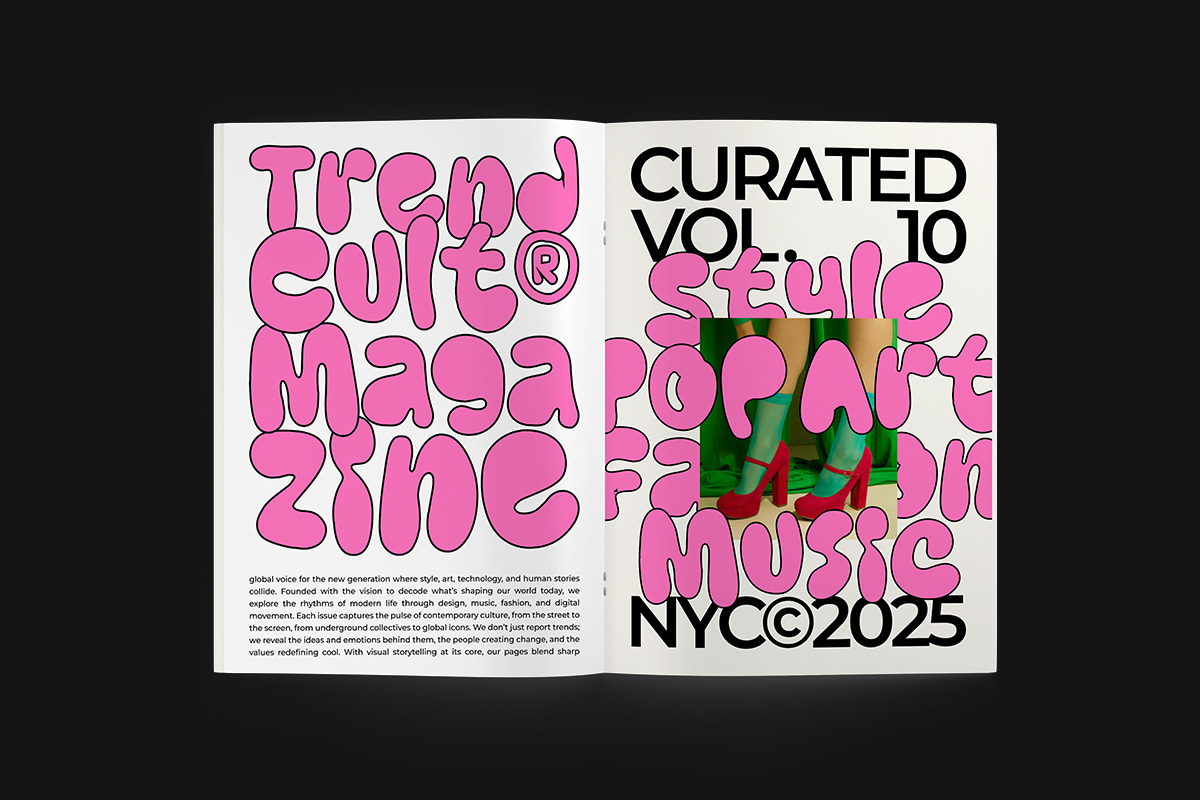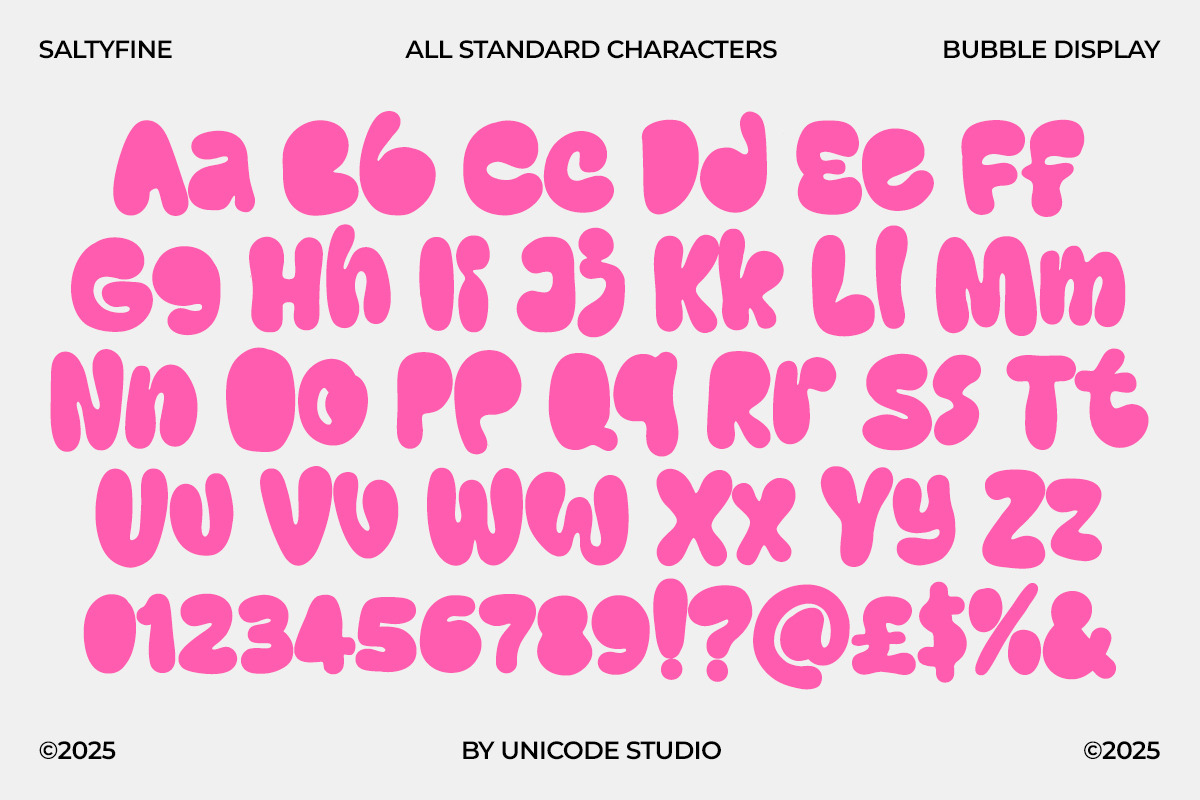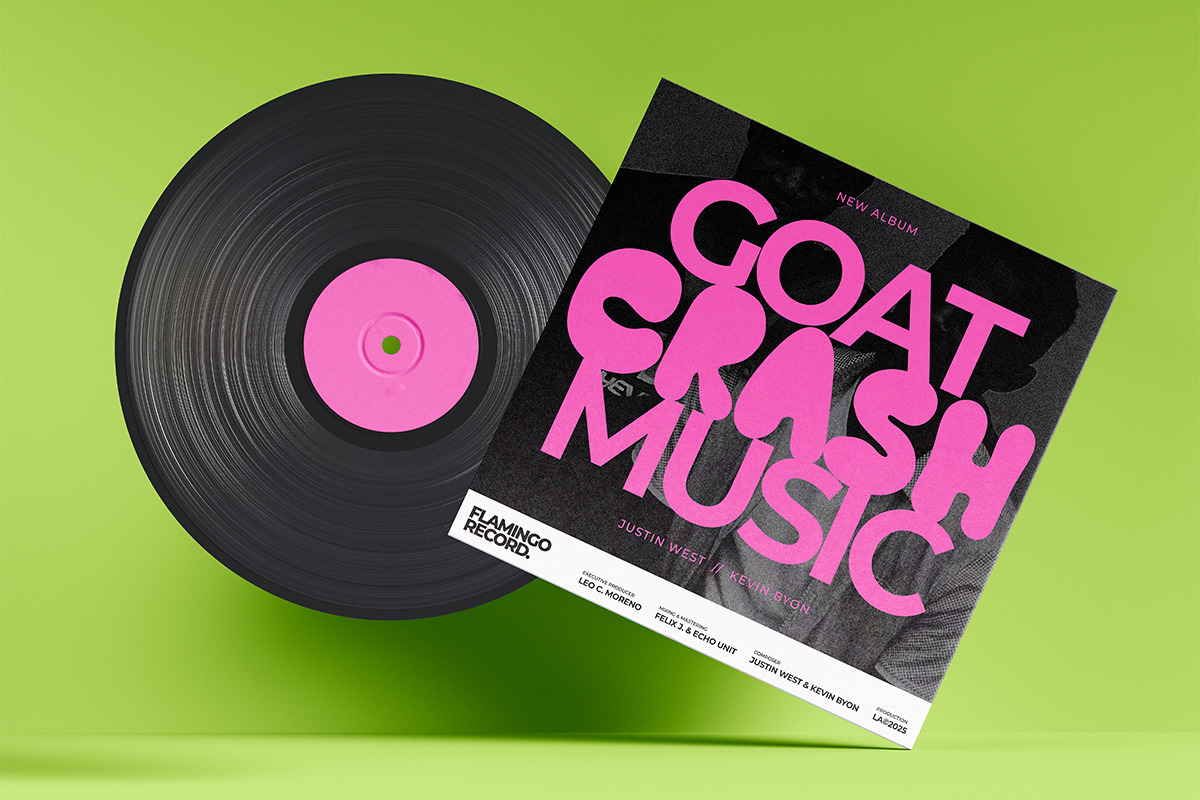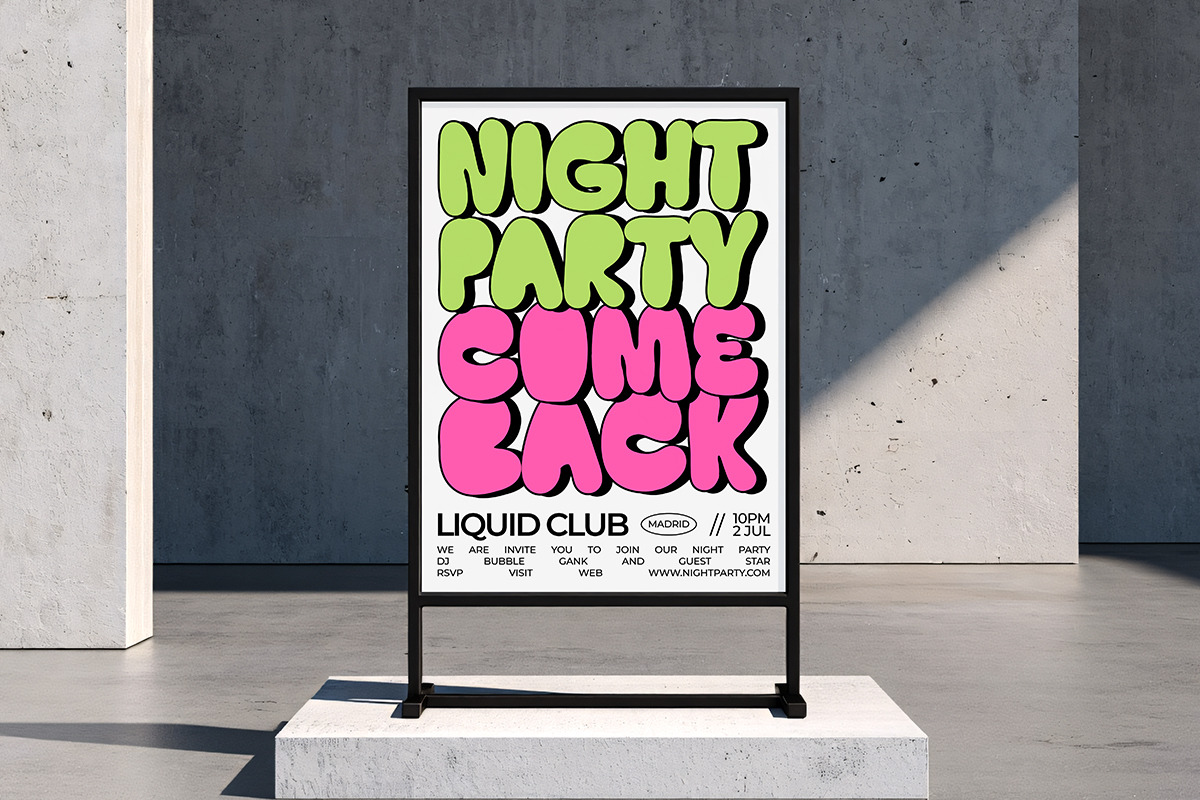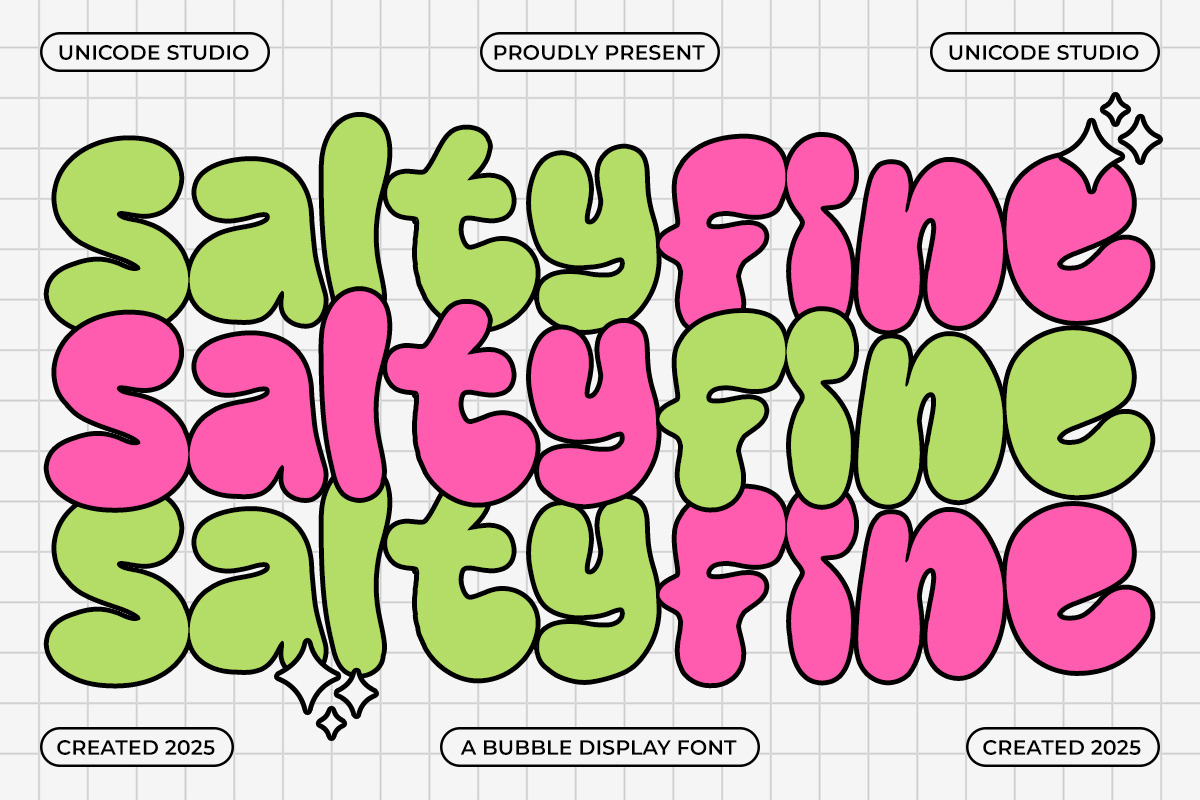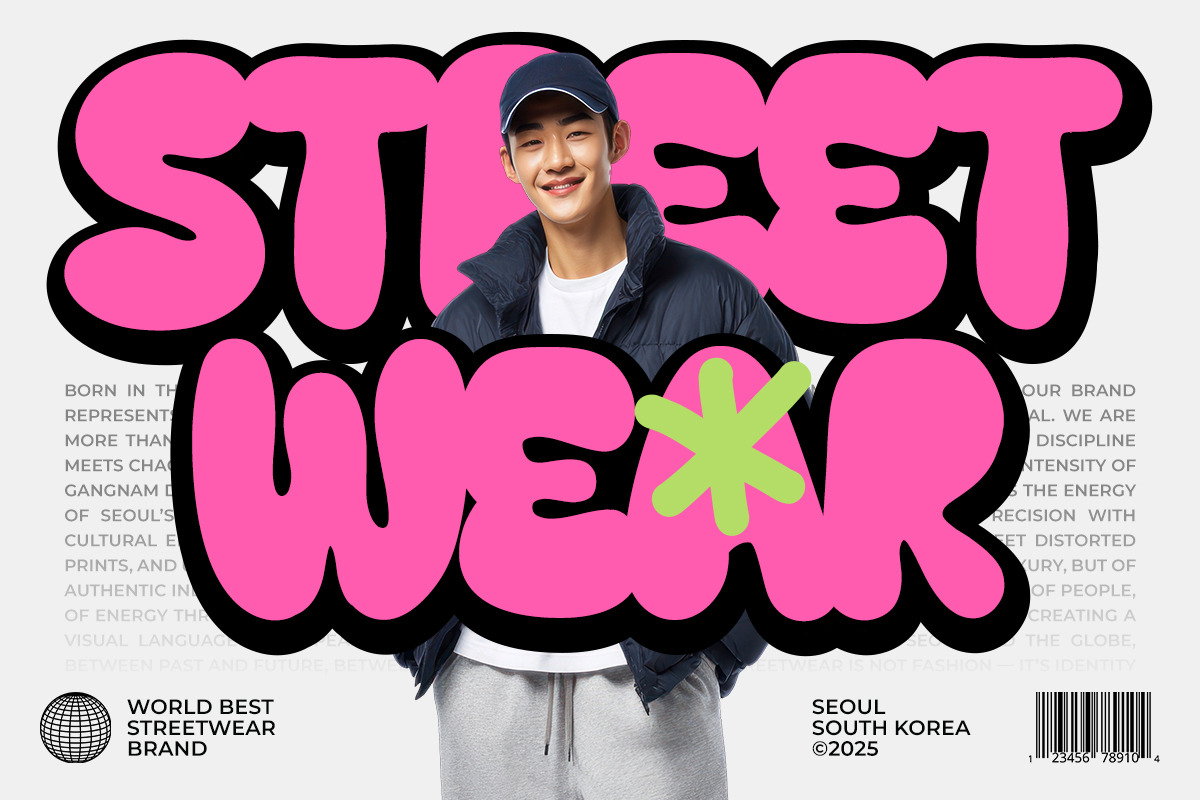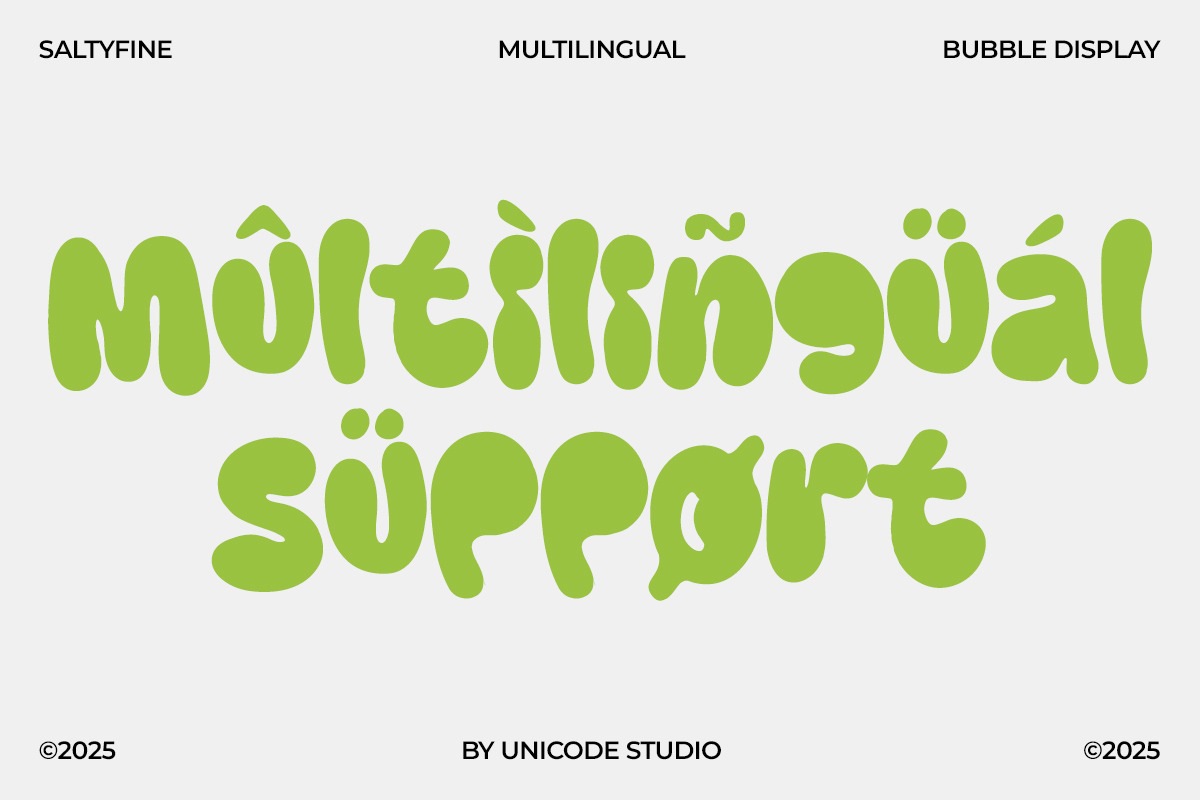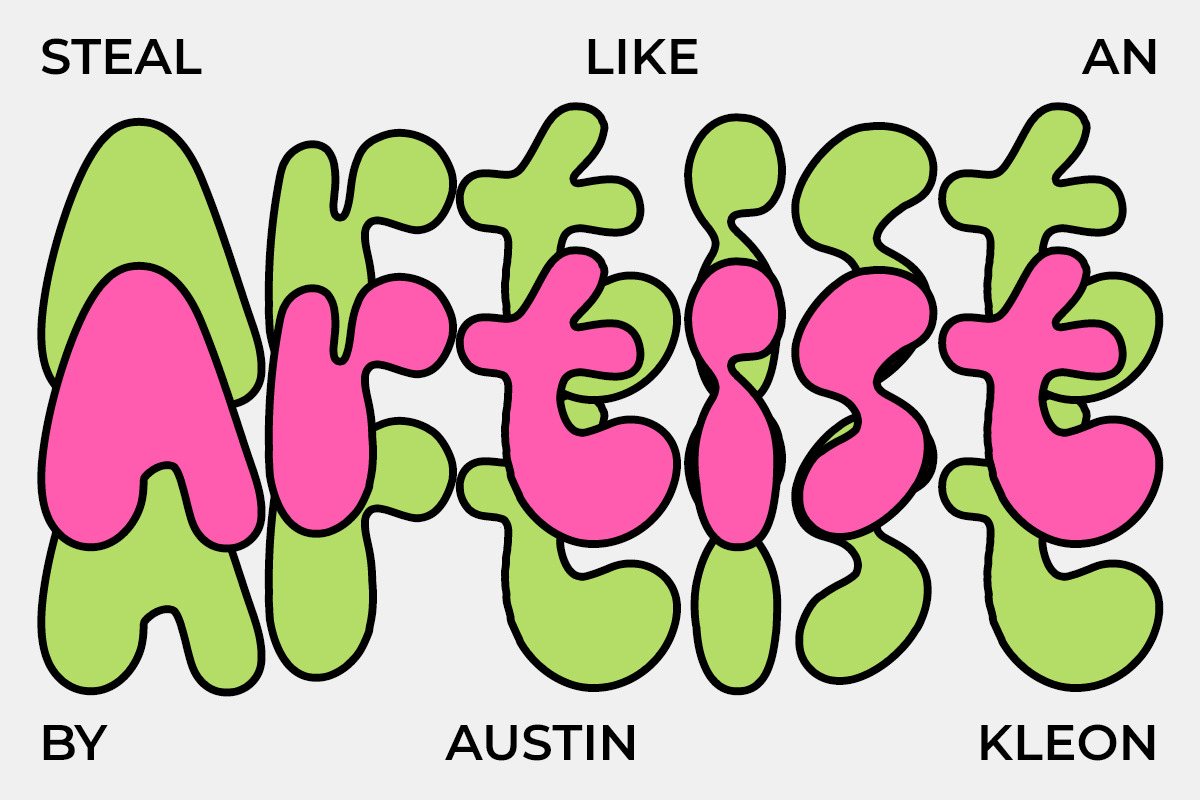
Saltyfine – Fun Bubble Display Font
Saltyfine – Fun Bubble Display Font for Playful and Retro Designs
Saltyfine is a bold and playful bubble display font that brings joy and energy to any design. Inspired by retro pop aesthetics and bubbly shapes, this font is perfect for kids’ projects, posters, branding, packaging, and social media graphics.
With its chunky, rounded letters and vibrant personality, Saltyfine adds a cheerful and eye-catching vibe to your creative work. Whether you’re designing for summer campaigns, cartoon titles, or colorful logos, this font makes your message stand out in a fun and friendly way.
Make your design shine with positive energy — choose Salty Fine, the bubbly font that makes creativity pop!